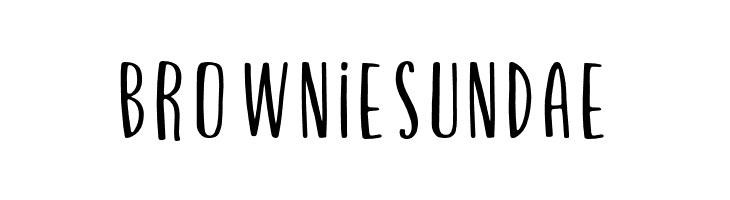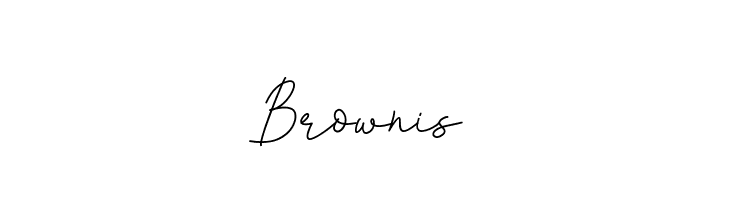
( Fonts by Subectype & Orenari )
A playful, handwritten font with tall, narrow letters and a casual vibe.
A modern, geometric font with a bold and clean appearance.
A graceful, flowing script font with elegant, continuous strokes.
( Fonts by K_IN Studio )
A playful, bold handwritten font with rounded edges and a casual style.
( Fonts by MJType )
A bold, playful font with rounded, hand-drawn characters.
A bold, brush-style font with dynamic, hand-painted strokes.
A bold, brush-style font with an artistic and dynamic appearance.
( Fonts by Nick Curtis - www.nicksfonts.com )
A bold, striking font with sharp angles and smooth curves.
( Fonts by Nick Curtis - www.nicksfonts.com )
A bold, shadowed decorative font with strong visual impact.